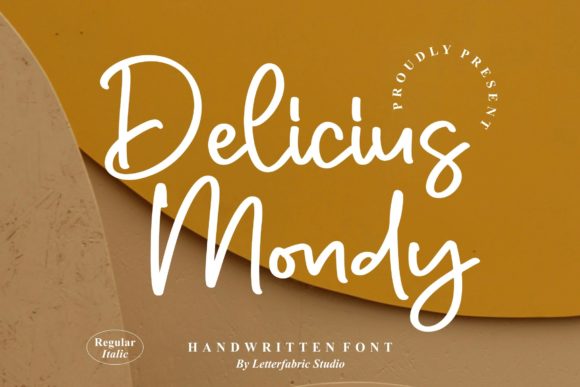
Delicius Mondy Font: A Whimsical and Modern Handwritten Font
Are you looking for a font that can add a touch of magic to your designs? Look no further than Delicius Mondy, a handwritten font that combines modern style with whimsical flair. In this article, we’ll take a closer look at Delicius Mondy and explore how it can elevate your designs to new heights.
What is Delicius Mondy?
Delicius Mondy is a handwritten font that has been carefully crafted to bring a sense of wonder and enchantment to your designs. With its modern yet whimsical style, this font is perfect for designers who want to create unique and eye-catching visuals. Whether you’re working on a poster, flyer, or print project, Delicius Mondy is sure to make your designs stand out.
Key Features of Delicius Mondy
- Handwritten style: Delicius Mondy has a beautiful, handwritten style that gives it a personal and organic feel.
- Modern and whimsical: This font combines modern style with whimsical flair, making it perfect for designers who want to create unique and eye-catching visuals.
- Magical and enchanting: Delicius Mondy has a magical quality that will transport your designs to a world of wonder and enchantment.
- Versatile: This font is perfect for a wide range of design projects, from posters and flyers to prints and more.
How to Use Delicius Mondy in Your Designs
Delicius Mondy is a versatile font that can be used in a wide range of design projects. Here are some ideas to get you started:
- Posters: Use Delicius Mondy to create eye-catching posters for events, promotions, or products.
- Flyers: Add a touch of magic to your flyers with Delicius Mondy, perfect for advertising, marketing, or informational materials.
- Prints: Use Delicius Mondy to create stunning prints, such as business cards, brochures, or posters.
- Branding: Incorporate Delicius Mondy into your brand identity to add a touch of whimsy and personality.
The Benefits of Using Delicius Mondy
So why choose Delicius Mondy for your designs? Here are just a few benefits of using this amazing font:
- Unique and eye-catching: Delicius Mondy is a one-of-a-kind font that will make your designs stand out from the crowd.
- Emotional connection: The whimsical and magical quality of Delicius Mondy will help you connect with your audience on an emotional level.
- Versatile: This font can be used in a wide range of design projects, making it a great addition to your font library.
Tips and Tricks for Using Delicius Mondy
Here are some tips and tricks for getting the most out of Delicius Mondy:
- Experiment with colors: Delicius Mondy looks great in a variety of colors, so don’t be afraid to experiment and find the perfect hue for your design.
- Play with font sizes: This font looks great in a range of sizes, from small and delicate to large and bold.
- Add texture and patterns: Consider adding texture and patterns to your design to give it an extra layer of depth and interest.
- Keep it simple: Don’t overcomplicate your design – sometimes, the simplest designs are the most effective.
In conclusion, Delicius Mondy is a truly unique and special font that can add a touch of magic to your designs. With its modern yet whimsical style, this font is perfect for designers who want to create eye-catching and enchanting visuals. Whether you’re working on a poster, flyer, or print project, Delicius Mondy is sure to make your designs stand out. So why not give it a try and see the magic for yourself?